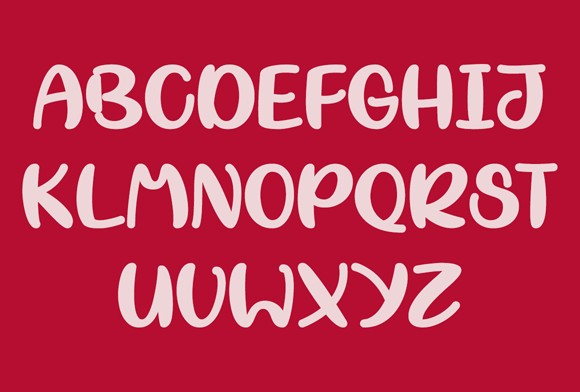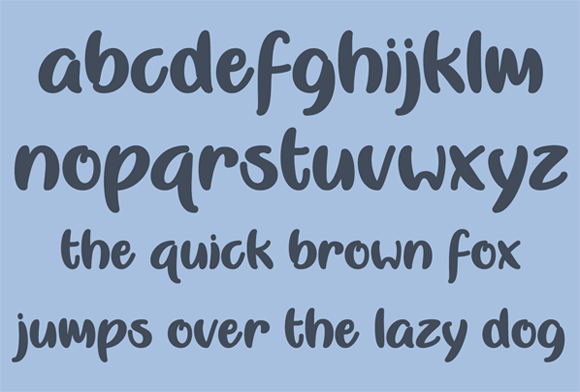
About Misti Nicole Font
Misti Nicole is a bold, handlettered typeface that will add funky flair to your projects! Great for product labels, logos, banners and so much more!